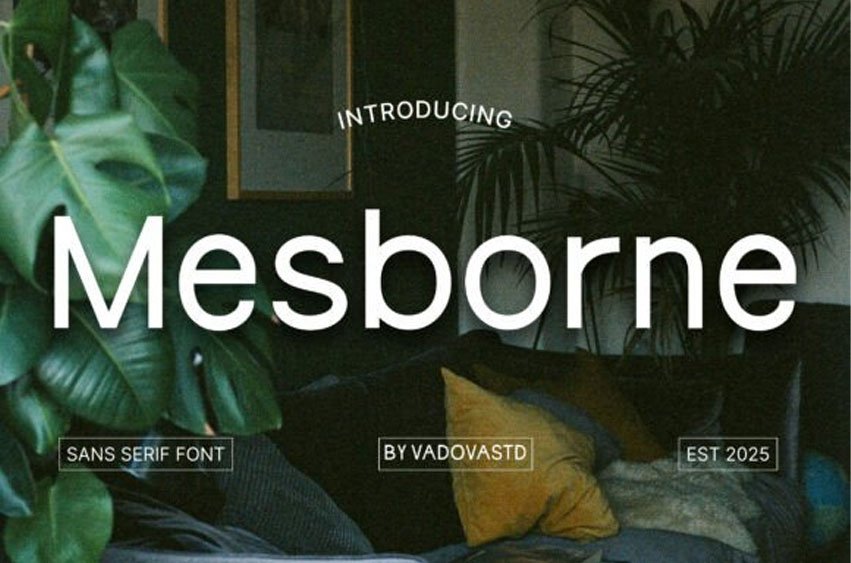
Mesborne Font
Mesborne Font is a clean and modern sans serif typeface designed with simplicity and clarity at its core. It features balanced proportions, smooth curves, and a neutral aesthetic that supports both digital and print applications.
The font includes uppercase, lowercase, numerals, and punctuation, ensuring full typographic flexibility. Delivered in high-quality formats, Mesborne is optimized for display, branding, and editorial layouts while maintaining excellent readability.